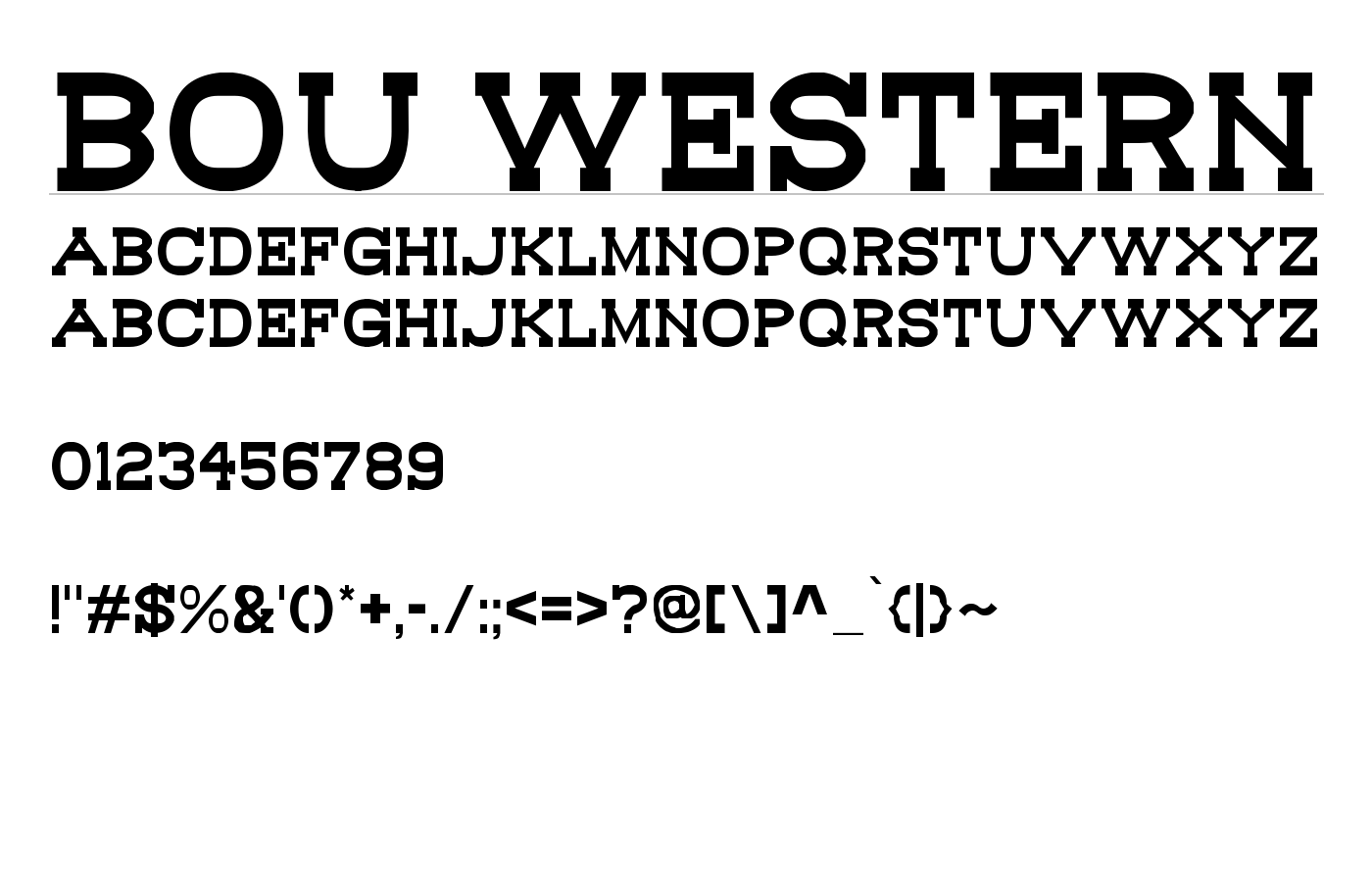
Bou Western is a bold, slab serif typeface with a strong, rugged character inspired by classic western typography. Its thick, blocky serifs and high contrast between thick and thin strokes create a vintage, authoritative feel perfect for headlines, logos, and branding that evoke a nostalgic or frontier spirit. This font works well in designs needing a sturdy and distinctive presence, such as posters, packaging, and western-themed projects.
Bou Western Font
About Bou Western Font
| Font family | Bou Western Font |
| Designer | Agustín Bou |